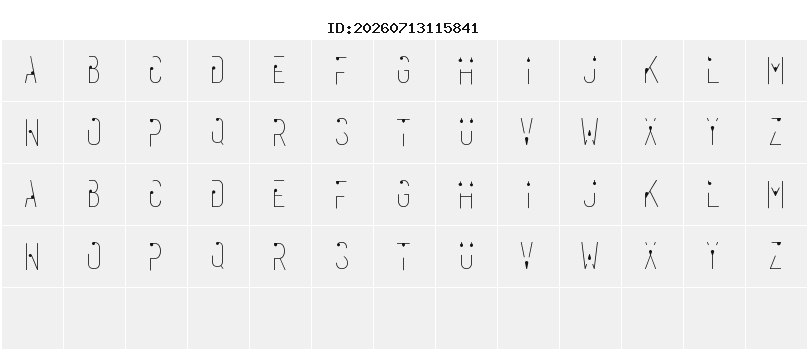
RAHASIA Preview
• Font Name: RAHASIA
• Font ID: RAHASIA:Version 1.00
• Full Font Name: RAHASIA
• Version: Version 1.00 June 4, 2014, initial release
• PostScript Name: RAHASIA
• Character Count: 242
About RAHASIA.ttf
RAHASIA.ttf is a modern, elegant sans-serif font designed for ultimate readability and visual harmony. Perfect for branding, headlines, web design, and print materials.